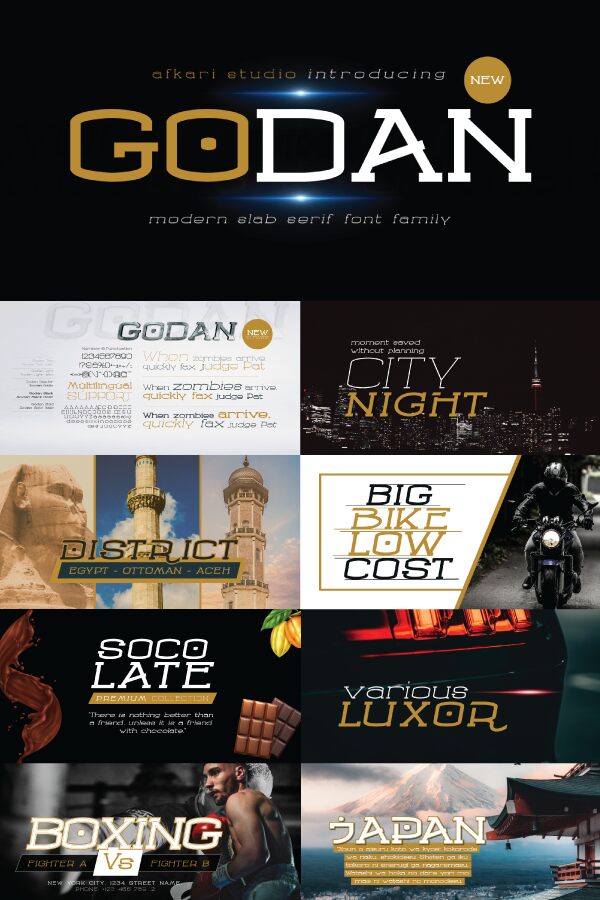
Godan is a beautiful serif typeface designed by Musthafa Kamal Emje. With its extra-wide width, it creates a distinct impression in any project. Godan is ideal for headlines and logos that require an elegant yet subtle look and feel. Its light weight provides an effortless flow to text and makes it suitable for magazines, books, posters, flyers, and other print media. Whether you're creating an eye-catching logo or crafting a timeless design - Godan will bring your vision to life!
Godan